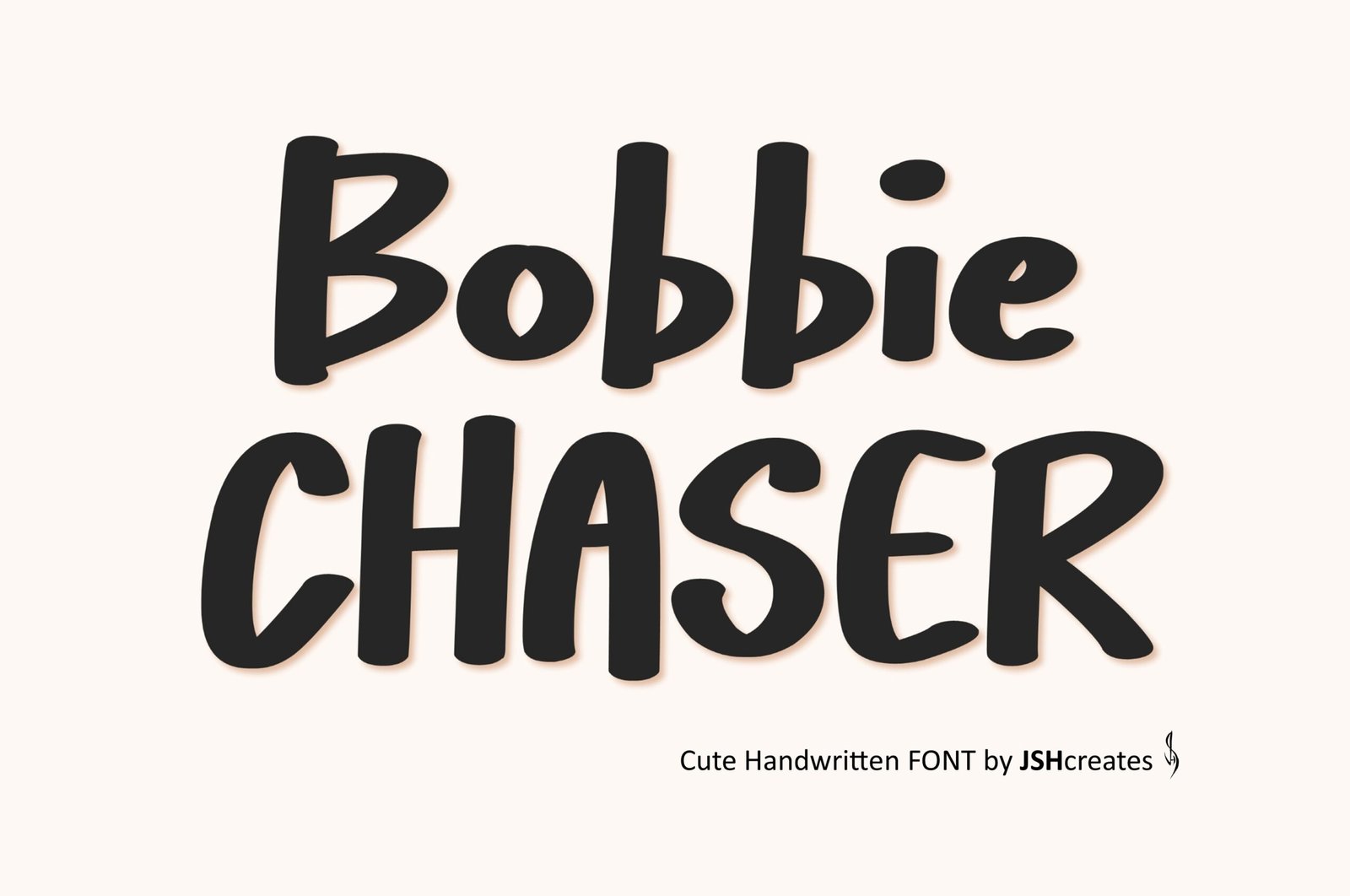
Bobbie Chaser Font
Hand lettered font. “Bobbie Chaser”. Perfect for advertising and display purposes, including banners, book covers, shirts, posters, logos and much more!
Font includes all upper and lowercase letters, numbers, characters and punctuation.